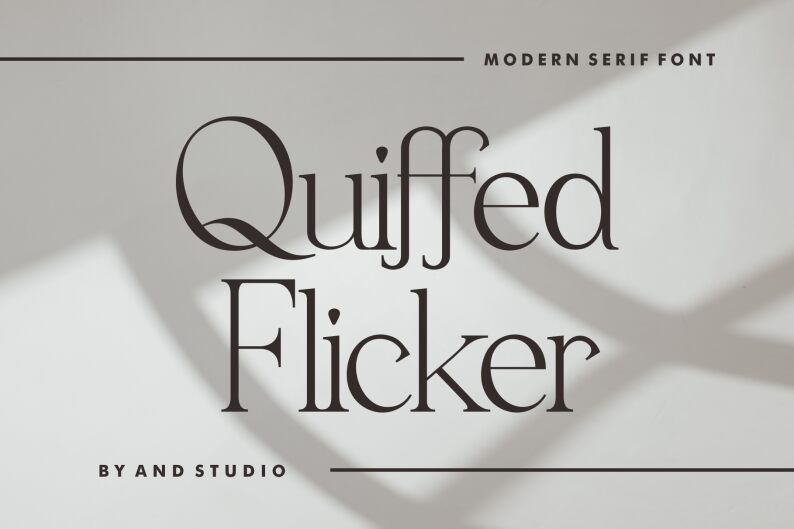
Quiffed Flicker
Quiffed Flicker font by And Studio is a free serif font with an elegant classic style. Each letter in Quiffed Flicker has a clean construction yet softened edges and smooth curves that delivers the desired sophisticated fine look. The stylistically brilliant characters radiate luxury and modernism fusing easy day readability with superior appeal.
The applications of Quiffed Flicker are extensive including branding designs, packaging ideas, invitation cards, magazines designs, books interiors and covers, stationery mockups, signs and posters projects. Fonts as such are considered standards for working on logos or typography-based artistic visuals like stickers or prints.